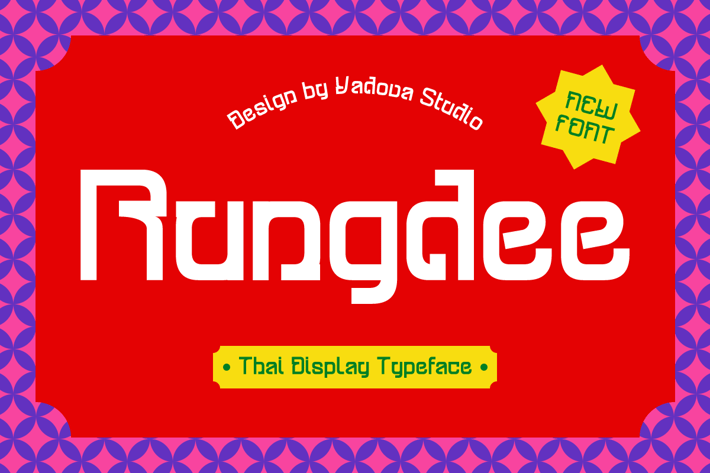
Rungdee Thai Display Font
Elevate your designs with Rungdee Thai Display Font, a vibrant and bold Thai display typeface designed by Vadova Studio, blending modern geometric shapes with a distinctively Thai aesthetic. Its structured yet playful letterforms evoke the essence of traditional Thai signage and contemporary design, making it perfect for branding, packaging, posters, and cultural-themed projects. With a striking balance of readability and artistic expression, Rungdee captures the spirit of Thai visual identity, adding a fresh and dynamic touch to any creative work.